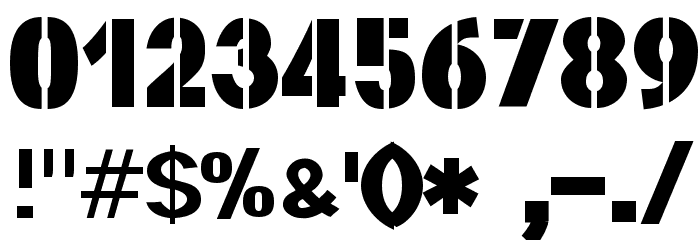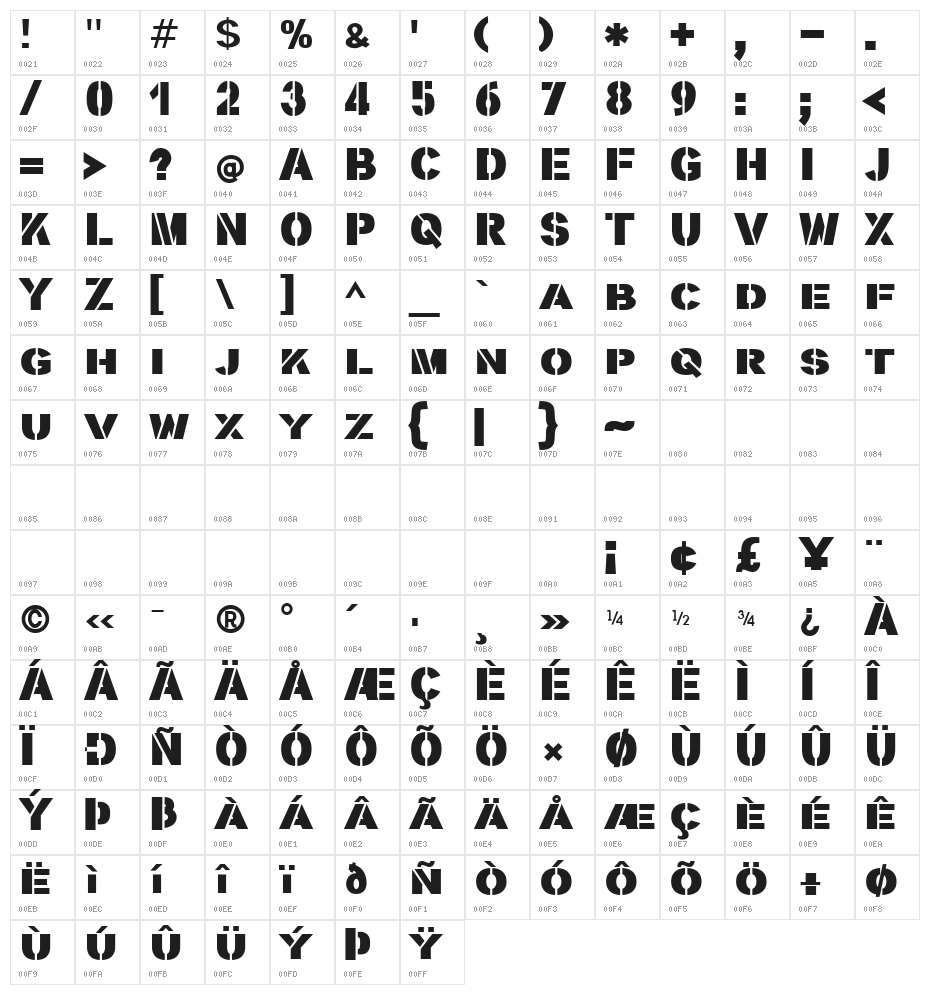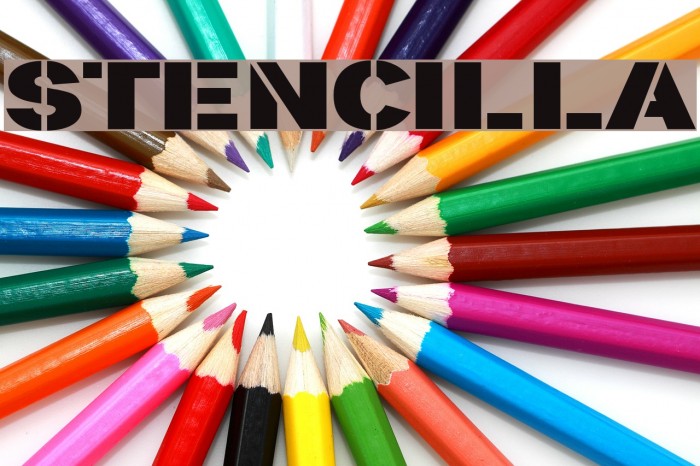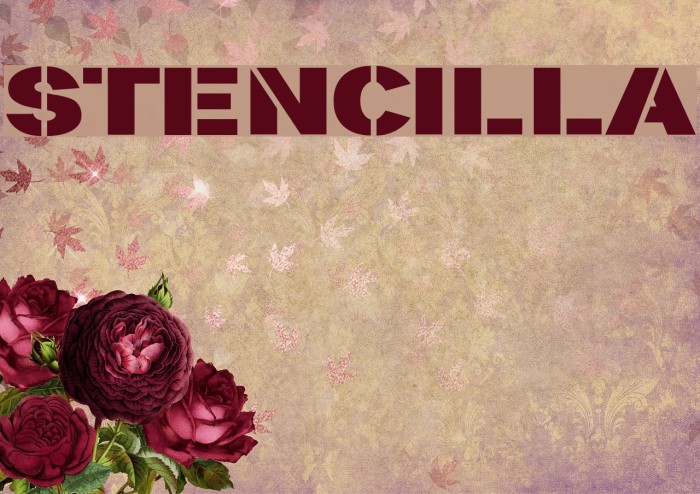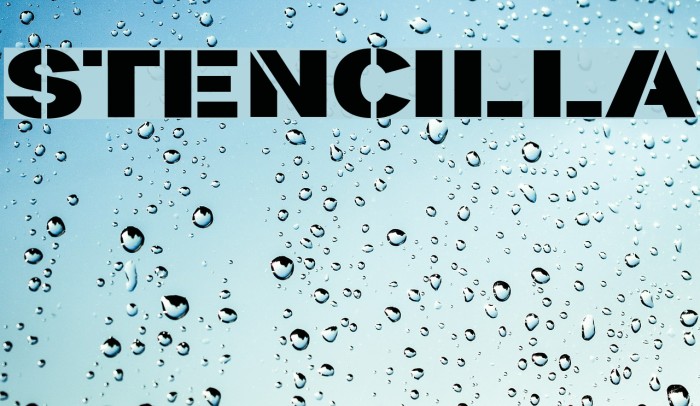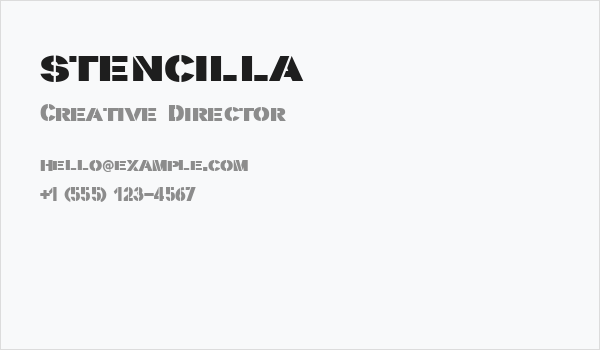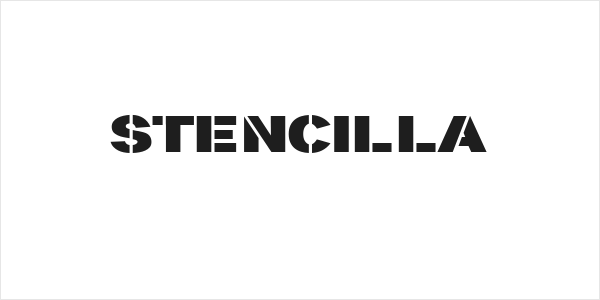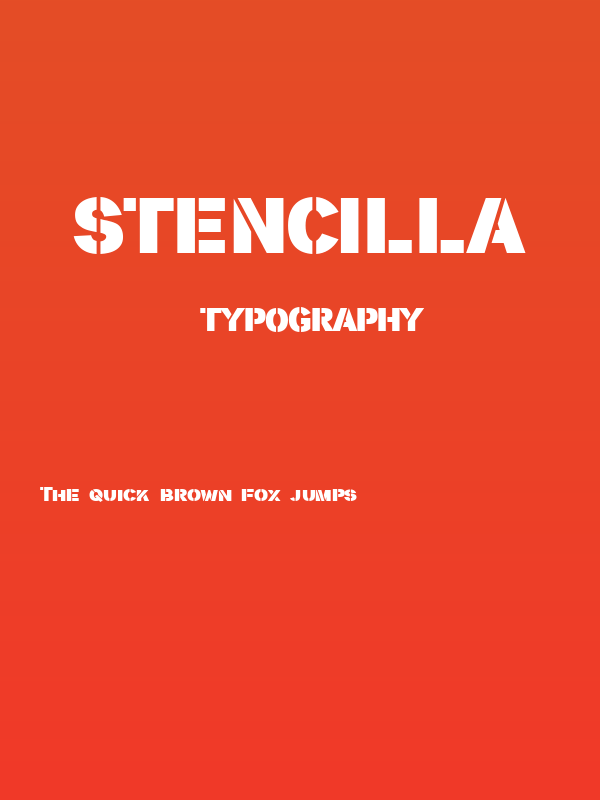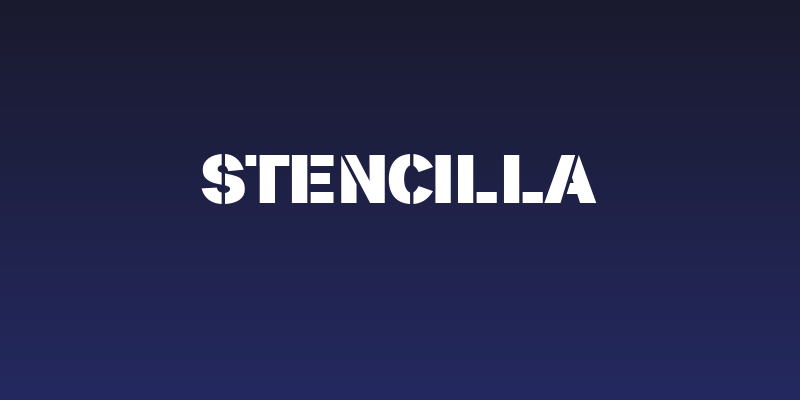
stencilla Font
stencilla Description
This bold and impactful font features a stencil-like design with distinct breaks in each character, creating a rugged and industrial appearance. The uppercase letters are particularly striking, with sharp angles and clean lines that convey strength and authority. The numbers and special characters maintain this cohesive style, ensuring versatility across various applications. The font's bold weight and high contrast make it highly legible from a distance, ideal for attention-grabbing headlines or signage. Its unique style is reminiscent of military or industrial themes, making it suitable for projects that require a strong, commanding presence.
| Overall Style | Industrial, Bold, Stencil |
| Use Case | Headlines, Signage, Posters |
| Proposed Projects | Ideal for military-themed designs, industrial branding, signage, posters, and any project requiring a bold statement. |